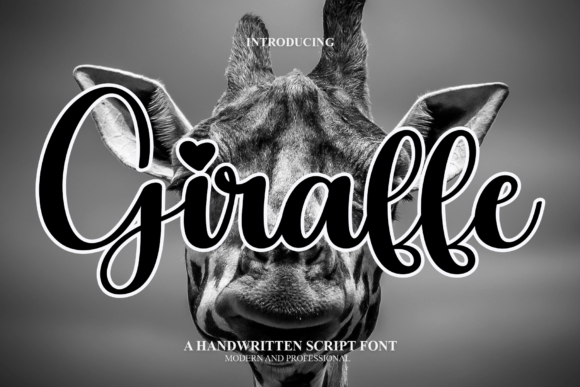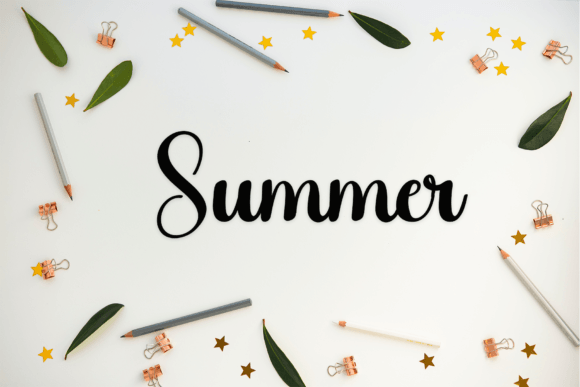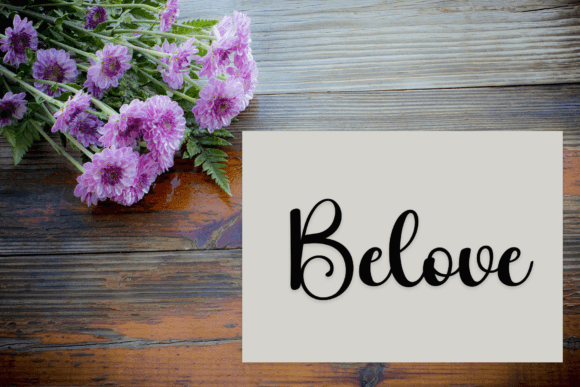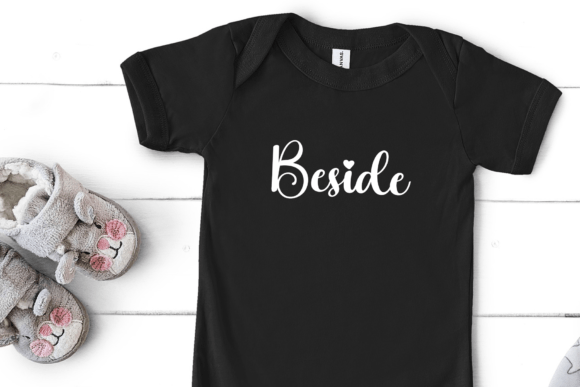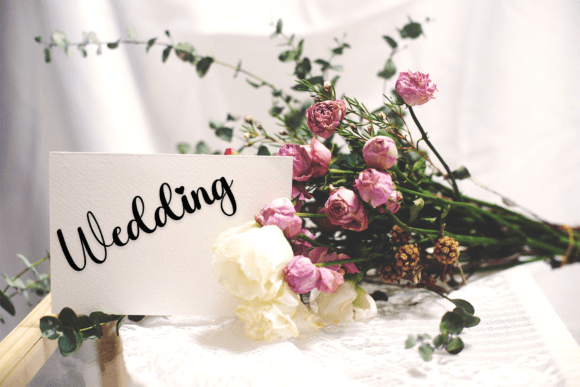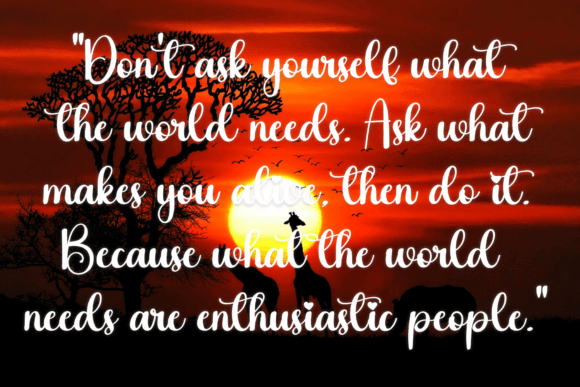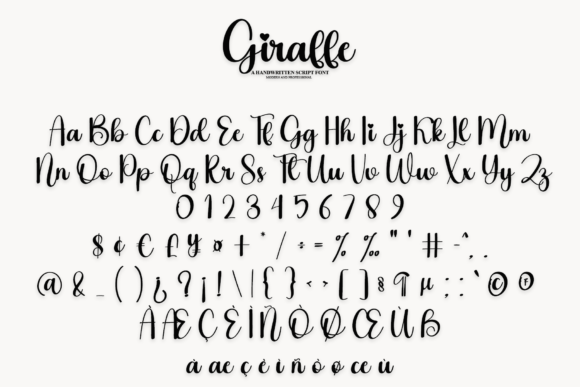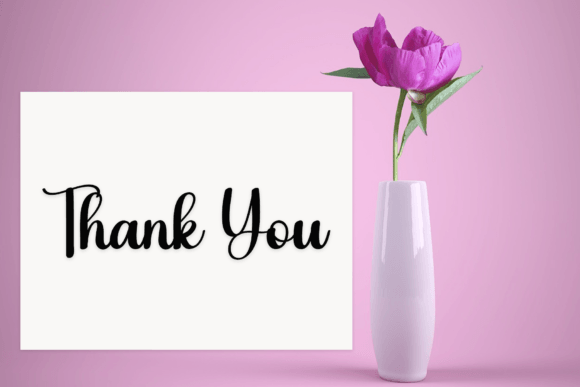
Giraffe Font
About Giraffe Font
Giraffe is a playful and stylish font that exudes a youthful spirit, making it a versatile choice for a wide range of design projects. Whether you’re working on professional branding designs, labels, websites, and business cards, or more casual projects like packaging, posters, flyers, quotes, social media posts, invitations, and special occasions cards, Giraffe adds a playful and stylish touch to your designs.
The playful nature of Giraffe makes it suitable for casual and creative projects. Its stylish letterforms bring a sense of fun and energy, making it a perfect choice for designs that aim to capture attention and convey a lighthearted vibe.
In professional contexts such as branding designs and business cards, Giraffe maintains its stylish appeal while adding a touch of personality. The font’s youthful spirit can contribute to creating a modern and approachable brand identity that resonates with a diverse audience.
For labels, packaging, and posters, Giraffe brings a playful and eye-catching quality. The stylish design of the font enhances the visual appeal of product labels and packaging, making them stand out on the shelves. In posters, Giraffe adds flair to promotional materials, creating a lively and engaging look.
In social media posts and invitations, Giraffe’s playful and stylish nature makes your text visually appealing. Whether you’re sharing quotes, event invitations, or announcements, the font adds a touch of creativity and youthfulness.
The versatility of Giraffe allows it to adapt to various design contexts, providing a dynamic and stylish element to your projects. Whether you’re working on professional or casual designs, Giraffe is ready to infuse your creations with its playful and stylish spirit.
In summary, Giraffe is more than just a font; it’s a design asset that brings a playful and stylish touch to a variety of projects. Whether you’re working on branding, packaging, social media, or special occasions, Giraffe adds a youthful and stylish vibe to your designs, making them more engaging and dynamic.